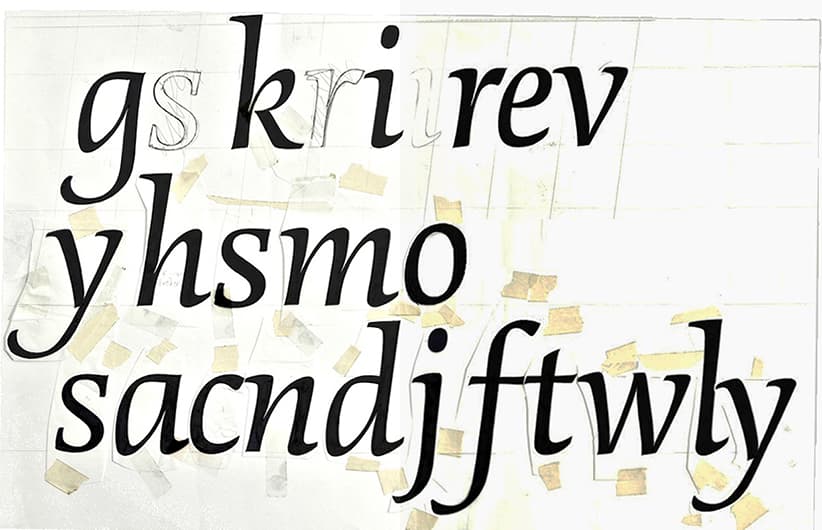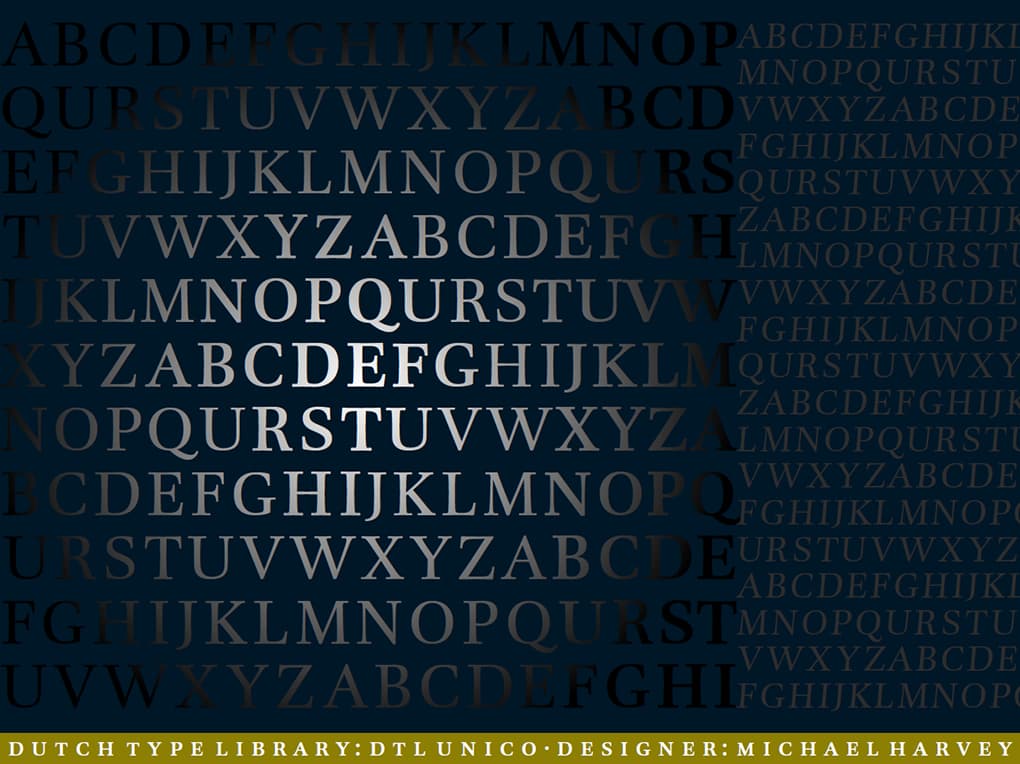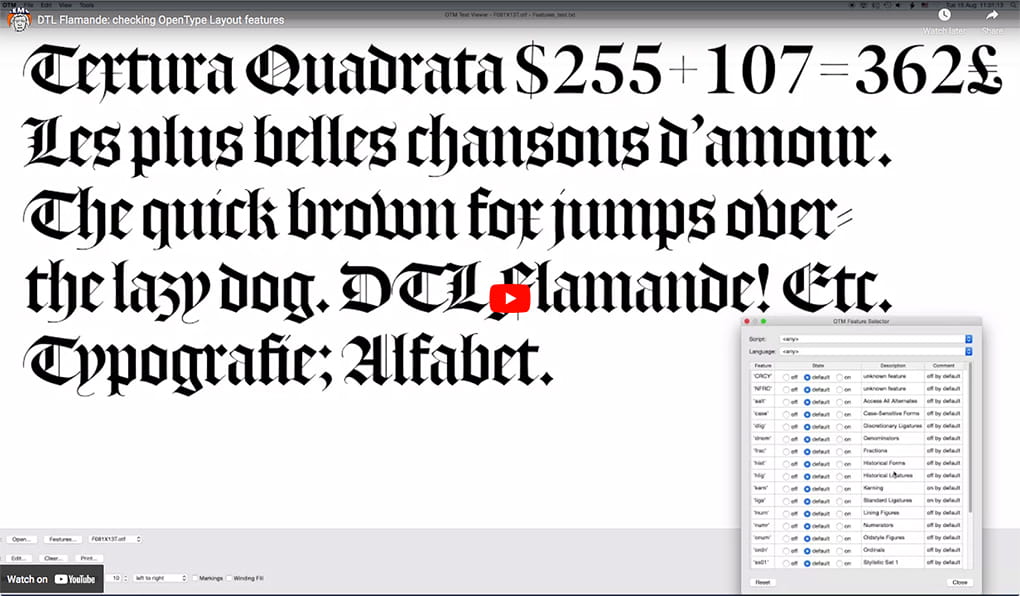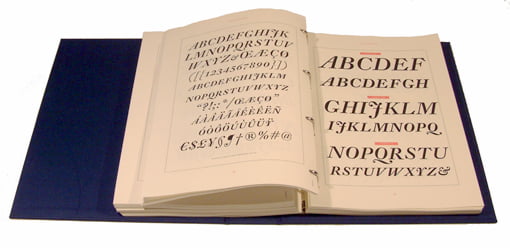
Quality Type for and by Professionals | |||||||||||||||||||||||||||||||||||||
¶ The Dutch Type Library is renowned for its exclusive and exquisite fonts, which are used worldwide for advanced and refined typography and sophisticated branding. Already 36 years ago dtl started supplying digital typefaces for the high-end market. ¶ The typefaces of the Dutch Type Library are optimized for both print and web applications. | |||||||||||||||||||||||||||||||||||||
¶ The texts on this website are typeset in web-optimized versions of dtl Argo and dtl Antares. ¶ The perfectly crafted dtl typefaces appear as harmonically and rhythmically on screen as in print. | |||||||||||||||||||||||||||||||||||||